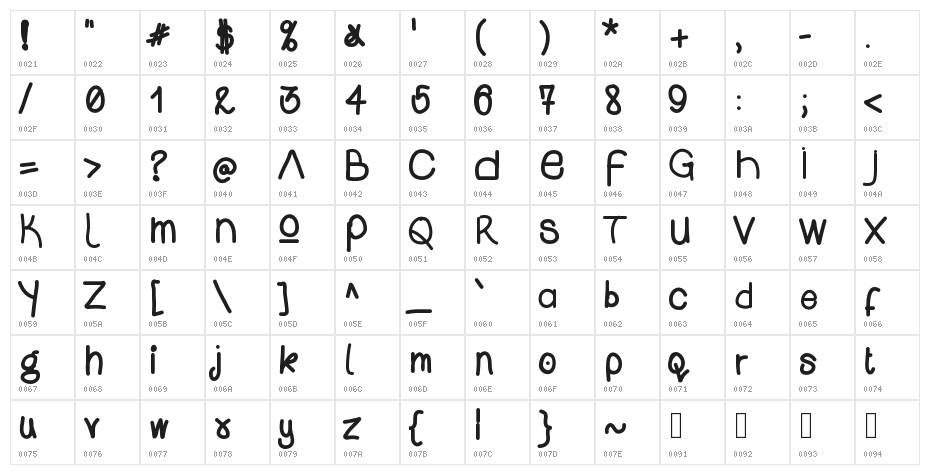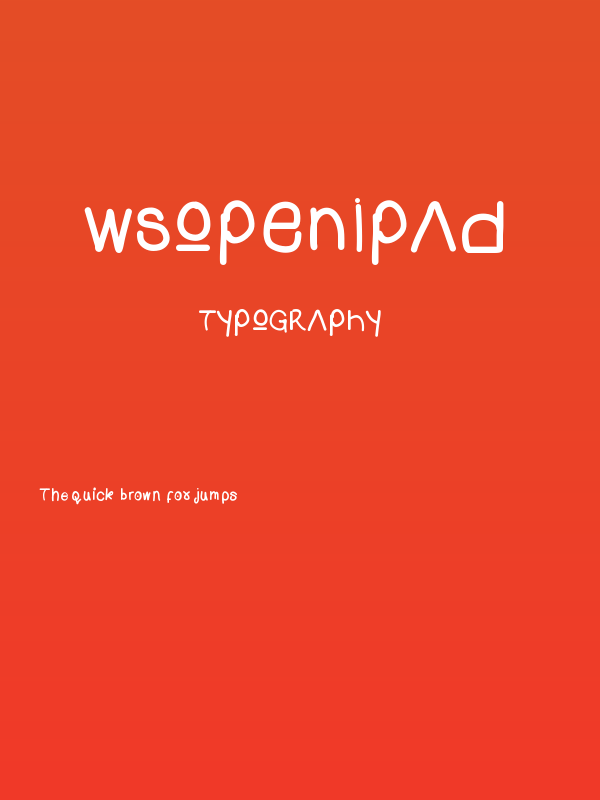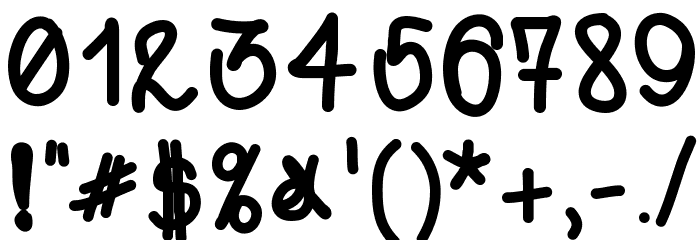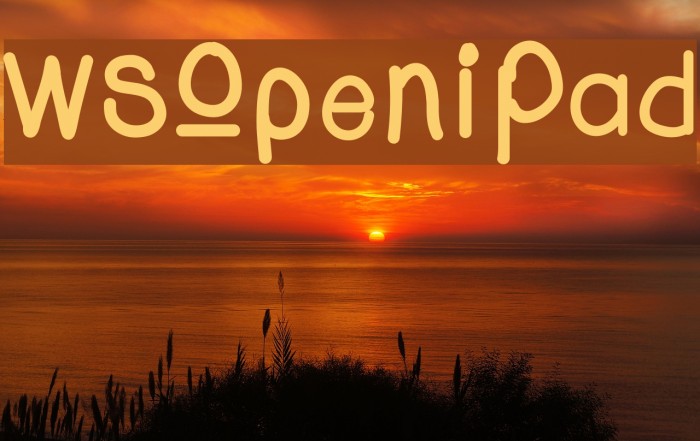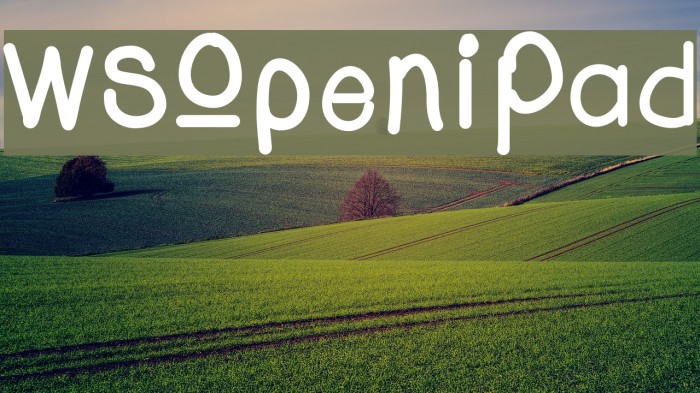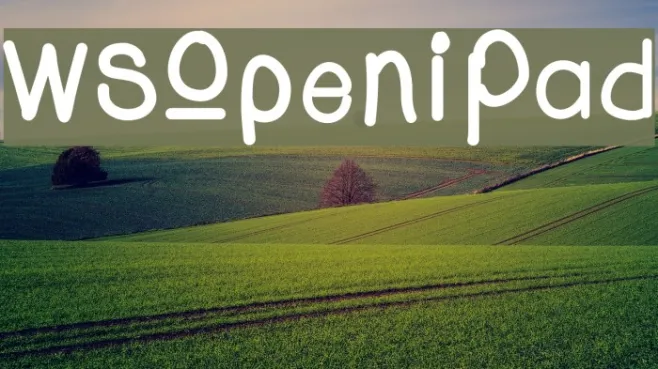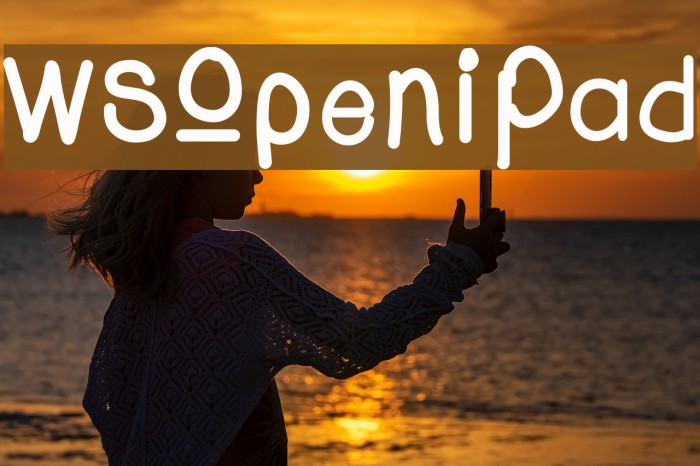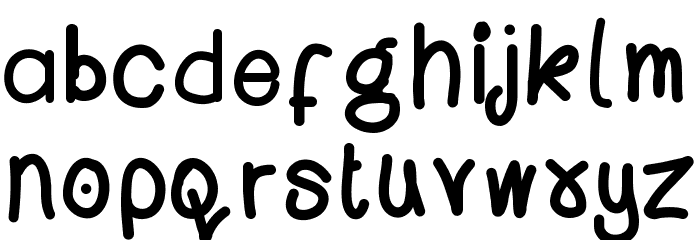
WSOpeniPad Font
WSOpeniPad Description
This playful and whimsical font features rounded, bold characters with a hand-drawn aesthetic. The uppercase and lowercase letters are consistent in their curvy and smooth design, giving a friendly and approachable feel. Numbers and special characters maintain this style, ensuring a cohesive look across all text. The font's unique charm is evident in its slightly irregular shapes, reminiscent of casual handwriting, making it ideal for informal and creative projects.
| Proposed Projects | Ideal for children's books, playful branding, greeting cards, and casual invitations. |